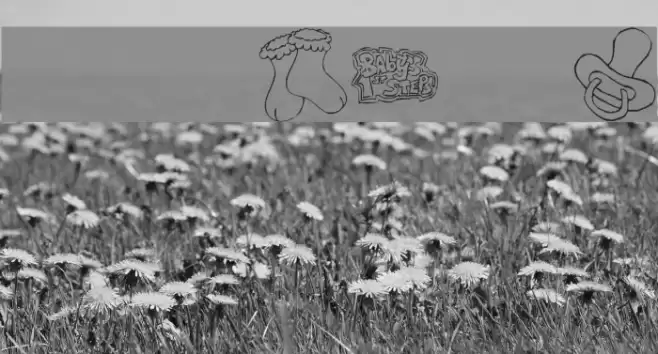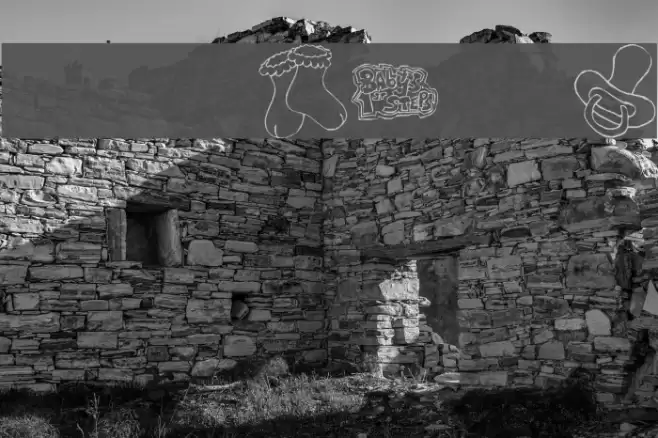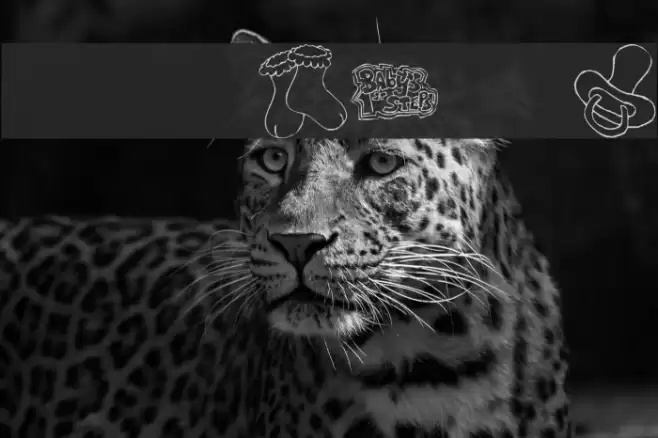
KR First Years Dings Font
KR First Years Dings Description
This is a decorative dingbat font featuring playful and whimsical illustrations. The characters include a variety of child-themed images such as toys, baby items, and playful figures. The numbers are styled as candles, adding a festive and celebratory touch. This font is ideal for projects that require a fun and lighthearted aesthetic, perfect for children's parties, baby showers, or playful invitations. The illustrations are bold and clear, making them easily recognizable and suitable for both digital and print media.
A playful dingbat font with child-themed illustrations and candle-styled numbers from Uncategorized fonts.
- Proposed Projects: Ideal for children's party invitations, baby shower decorations, playful greeting cards, and educational materials.
- Overall Style: Playful, Whimsical
- Use Case: Decorative elements, Invitations, Educational materials